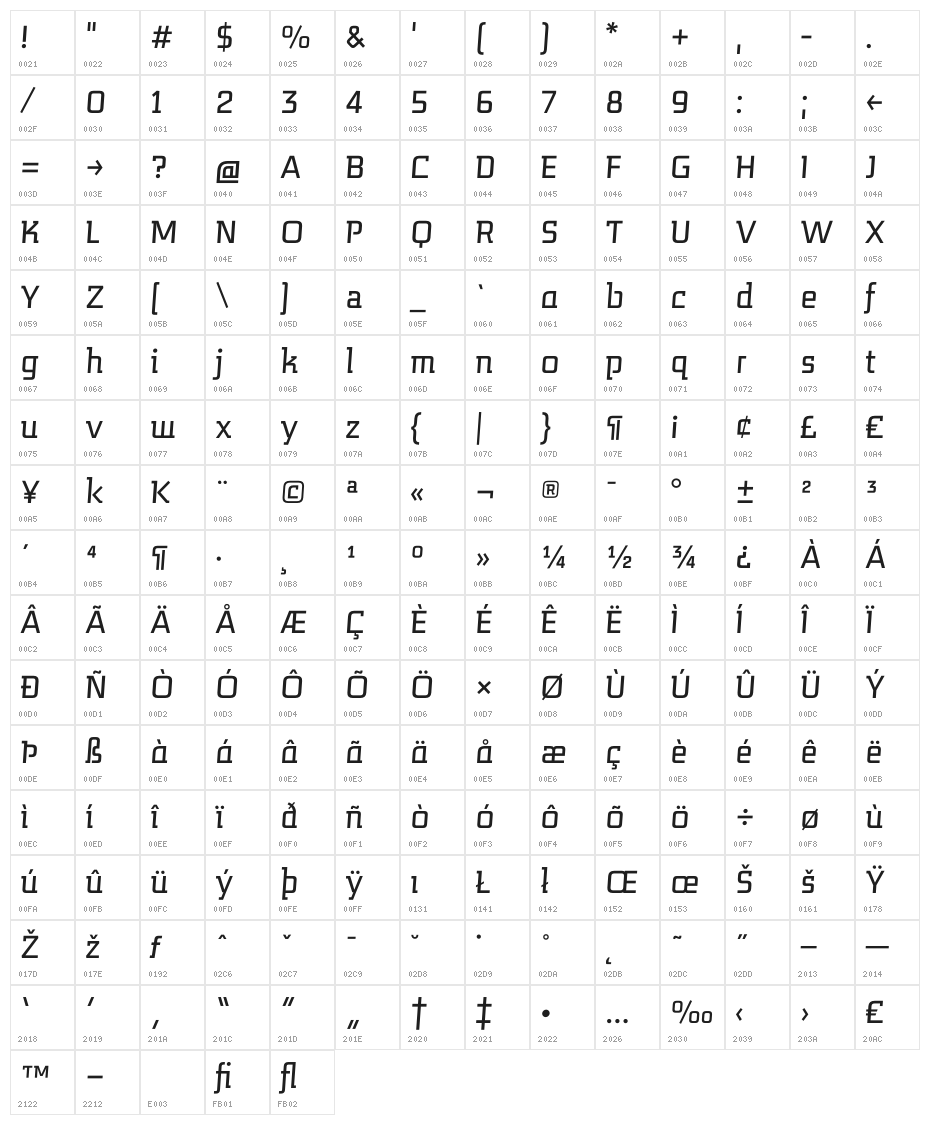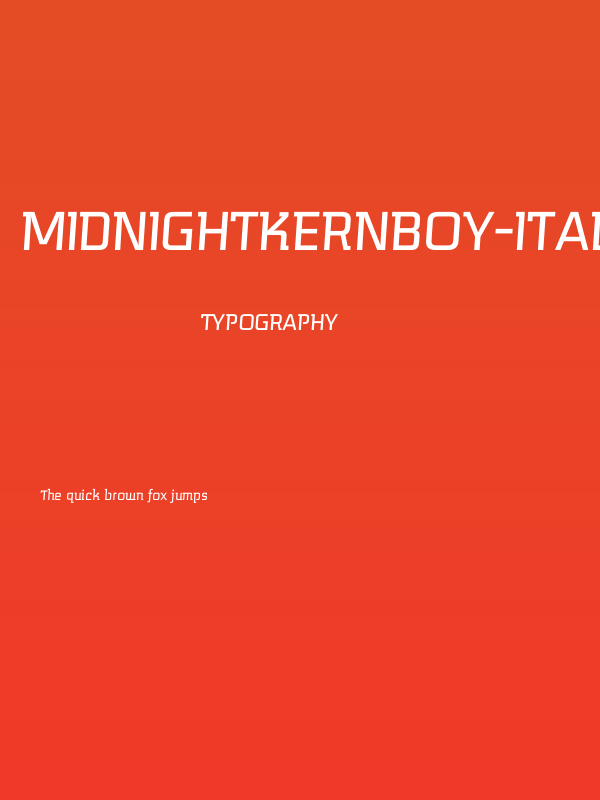
MidnightKernboy-Italic Font
MidnightKernboy-Italic Description
This font exhibits a modern and sleek design with a slightly italicized slant, giving it a dynamic and forward-moving appearance. The characters are crafted with precision, featuring clean lines and a geometric structure. The uppercase letters are bold and assertive, while the lowercase letters maintain a consistent style with a touch of elegance. The numerals are clear and easily distinguishable, making them suitable for various applications. Special characters are well-integrated, maintaining the overall aesthetic of the font. The spacing between characters is balanced, ensuring readability and visual appeal.
Use CaseHeadlines, Logos, Digital Interfaces
Proposed ProjectsIdeal for branding, advertising, digital interfaces, and editorial design.